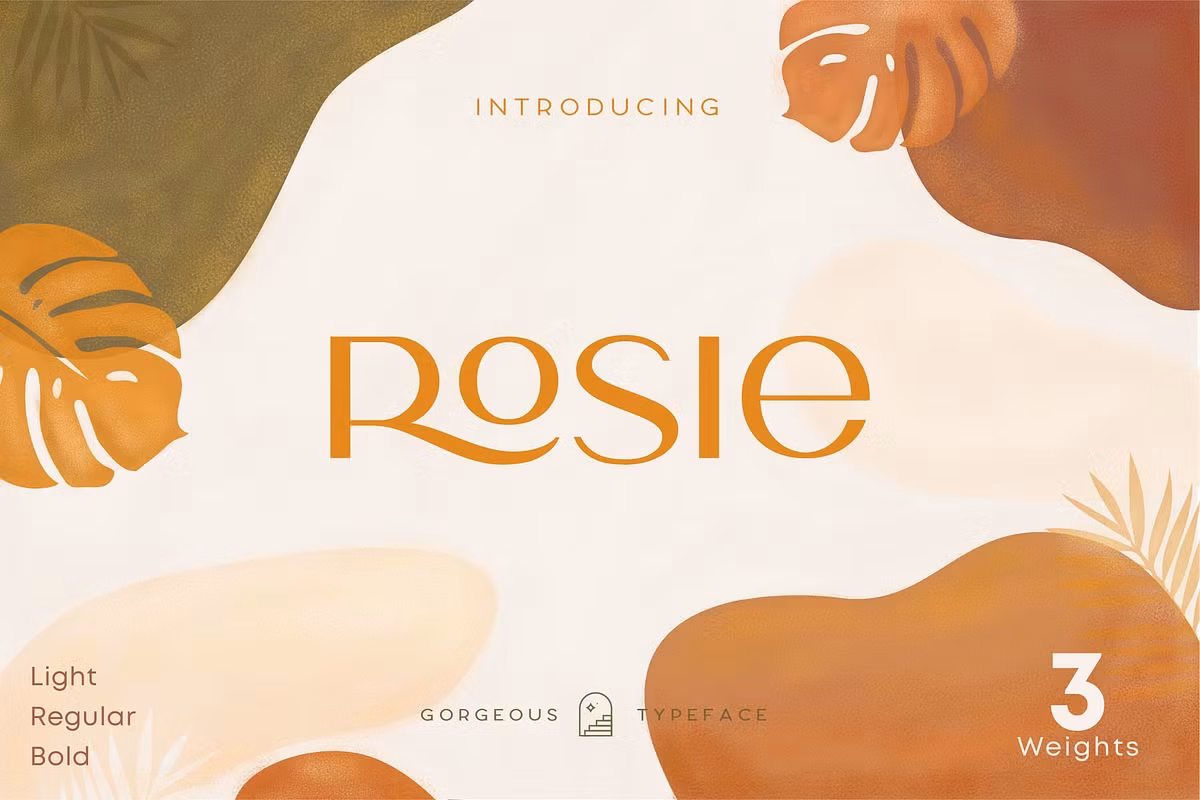
Rosie Sans - Gorgeous Typeface Free Download is a clean, modern sans-serif font that radiates elegance and simplicity. With its soft curves, balanced proportions, and versatile structure, Rosie Sans is ideal for branding, fashion lookbooks, website headers, minimalist logos, and editorial design that calls for a polished, contemporary feel.
Rosie Sans - Gorgeous Typeface Free Download brings a fresh, refined look to any project, offering excellent readability without sacrificing style. Whether you're designing chic packaging or upscale digital content, this font gives your work a graceful, professional edge. Download it today and discover the modern charm of Rosie Sans in your next creative project.